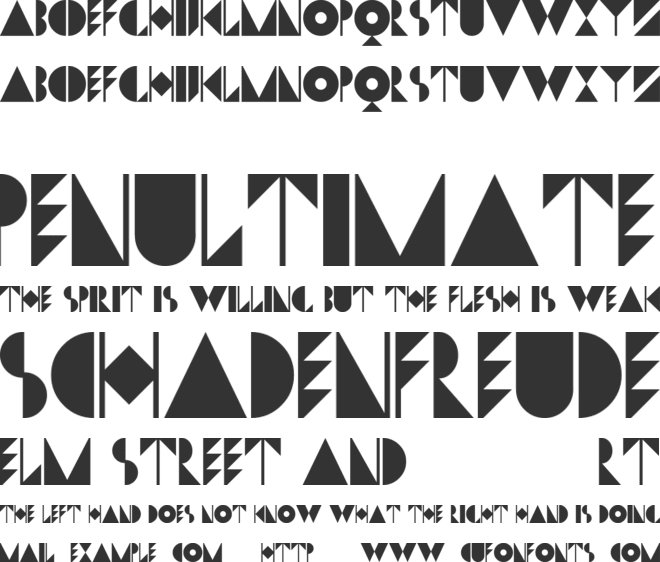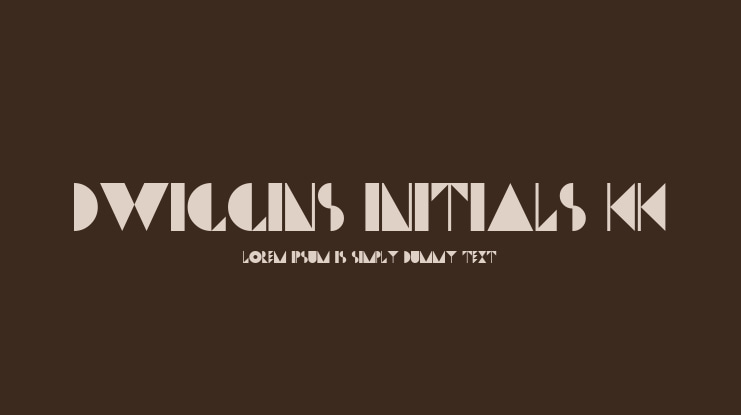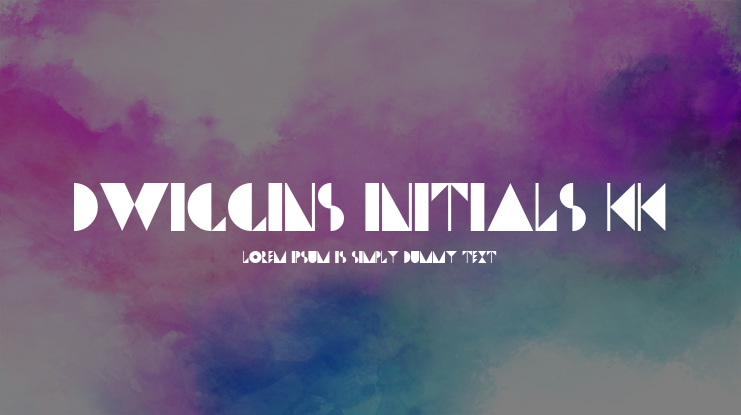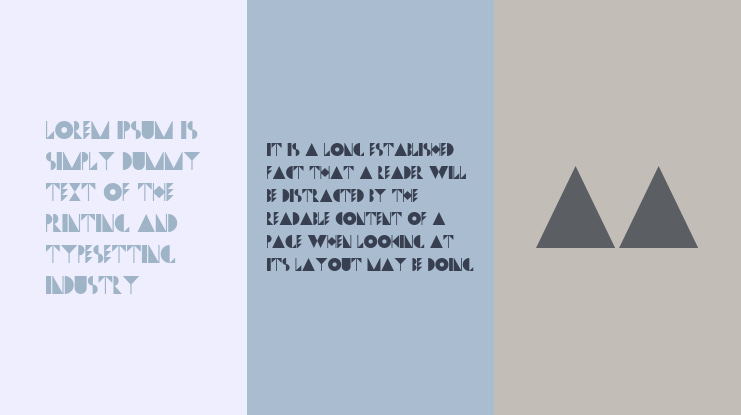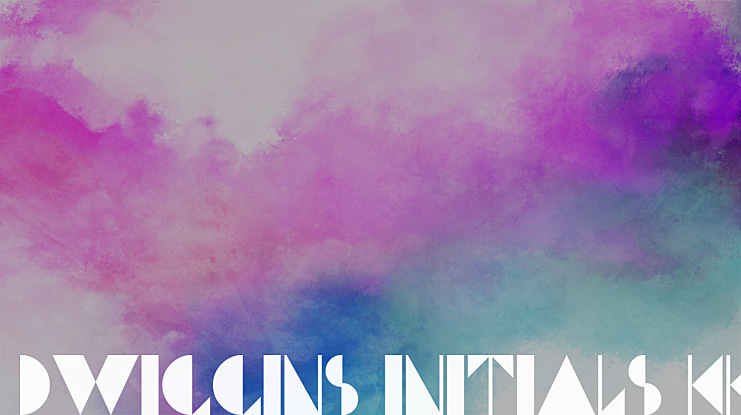
Dwiggins Initials KK Font
W.A. Dwiggins
Free. Use it as you like as long as you do not modify this font. Dwiggins Initials is based on a 1930 unnamed sketch by W.A. Dwiggins. Initial capitals only.